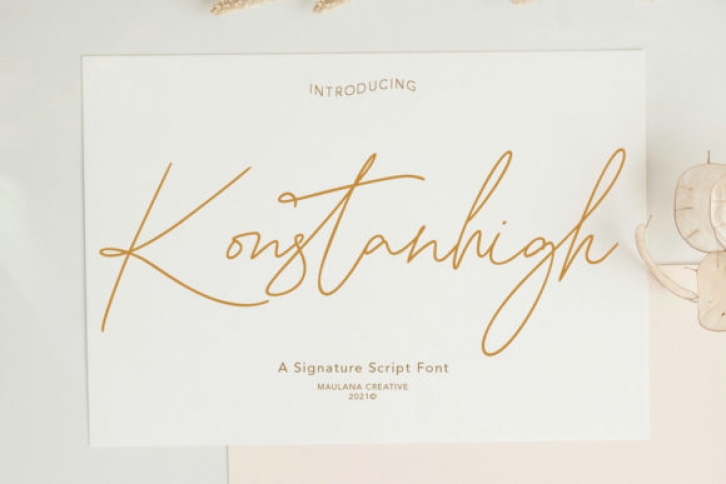
Konstanhigh is a thin lettered, fashionable and elegant script font. This font is neatly crafted and highly detailed. Whatever the topic, this font will be a wonderful asset to your font library, as it has the potential to enhance any creation.